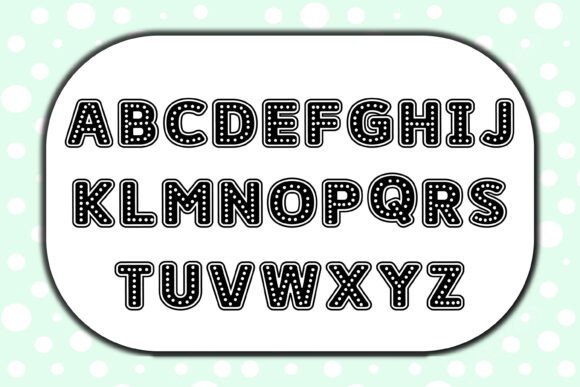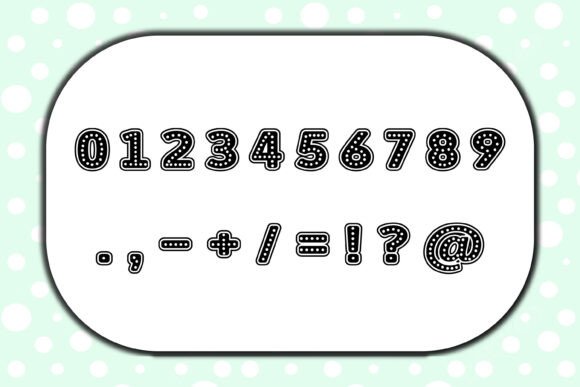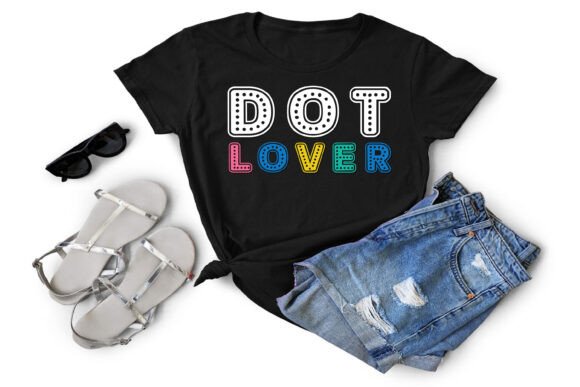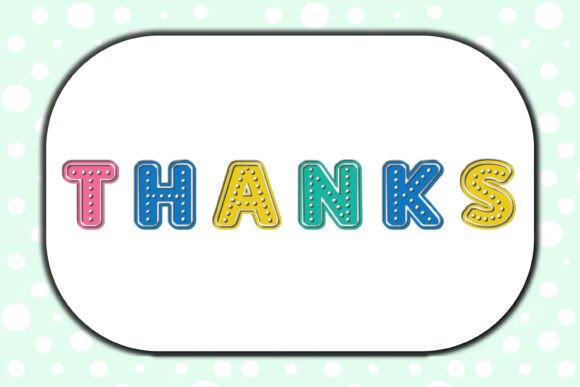
Introducing Dot Lover Font: Elevate Your Designs with a Vibrant Splash of Joy and Whimsy
Are you tired of using the same old fonts in your designs? Do you want to add a touch of personality and whimsy to your creative projects? Look no further than the Dot Lover Font, a vibrant and uplifting color font that’s sure to take your designs to the next level. In this article, we’ll explore the features and benefits of this exciting new font, and show you how it can be used to elevate your branding initiatives, packaging designs, logotypes, headlines, and more.
What is Dot Lover Font?
Dot Lover Font is a unique and colorful font that’s designed to bring a smile to your face. Its playful and whimsical design makes it perfect for designers and crafters who want to add a touch of personality to their work. Whether you’re creating branding materials, packaging designs, or social media graphics, this font is sure to make your designs stand out from the crowd.
Key Features of Dot Lover Font
- Color Font: Unlike traditional fonts, Dot Lover Font comes in a range of colors, allowing you to add an extra dimension to your designs.
- Whimsical Design: The font’s playful and whimsical design makes it perfect for designs that require a touch of personality.
- Versatile: Dot Lover Font can be used for a wide range of design projects, from branding initiatives to packaging designs, logotypes, and headlines.
- Easily Customizable: The font is easily customizable, allowing you to adjust the color, size, and style to suit your design needs.
Dot Lover Font is perfect for designers and crafters who want to add a touch of whimsy and personality to their work. Whether you’re creating:
- Branding Initiatives: Use Dot Lover Font to create eye-catching logos, business cards, and letterheads that reflect your brand’s personality.
- Packaging Designs: Add a touch of color and whimsy to your product packaging with this unique font.
- Logotypes: Create memorable and eye-catching logotypes that showcase your brand’s personality.
- Headlines: Use Dot Lover Font to create attention-grabbing headlines that add a touch of personality to your designs.
- Wedding Invitations: Add a touch of charm and whimsy to your wedding invitations and other stationery with this beautiful font.
The Transformative Power of Dot Lover Font
Dot Lover Font has the power to transform your designs and take them to the next level. Its unique and colorful design makes it perfect for designers and crafters who want to:
- Add a Touch of Personality: Dot Lover Font allows you to add a touch of personality and whimsy to your designs, making them stand out from the crowd.
- Create Emotional Connections: The font’s playful and uplifting design makes it perfect for creating emotional connections with your audience.
- Elevate Your Brand: Use Dot Lover Font to elevate your brand and create a lasting impression on your audience.